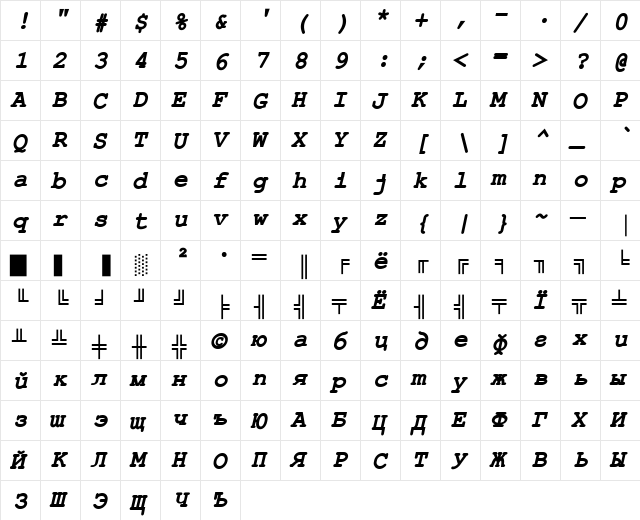
ER Kurier KOI8-R Bold Italic
Design Context for ER Kurier KOI8-R Typeface
ER Kurier KOI8-R is a composed and adaptable typeface that performs quietly and consistently across a wide range of design contexts. The slanted form adds forward momentum and visual energy. The heavy weight commands attention and anchors typographic hierarchies.
Pro Tip: Use ER Kurier KOI8-R for emphasis, pull quotes, and subheadings where its slanted energy can add rhythm to the layout.